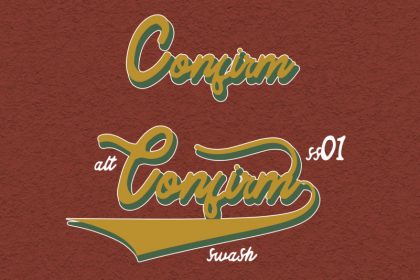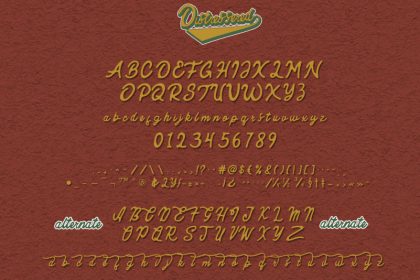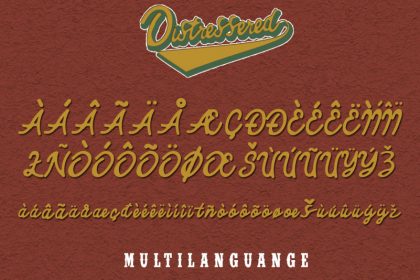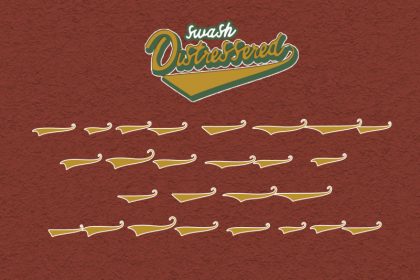
Distressered Vintage Font
Introducing Distressered Font ! A monoline vintage script typeface which is created based on manual hand lettering with many features such as, stylistic set alternate, swashes You will find font in both OTF, TTF,WOFF formats. No special software is required to use DistresseredFont, just install it as you normally do on your system.